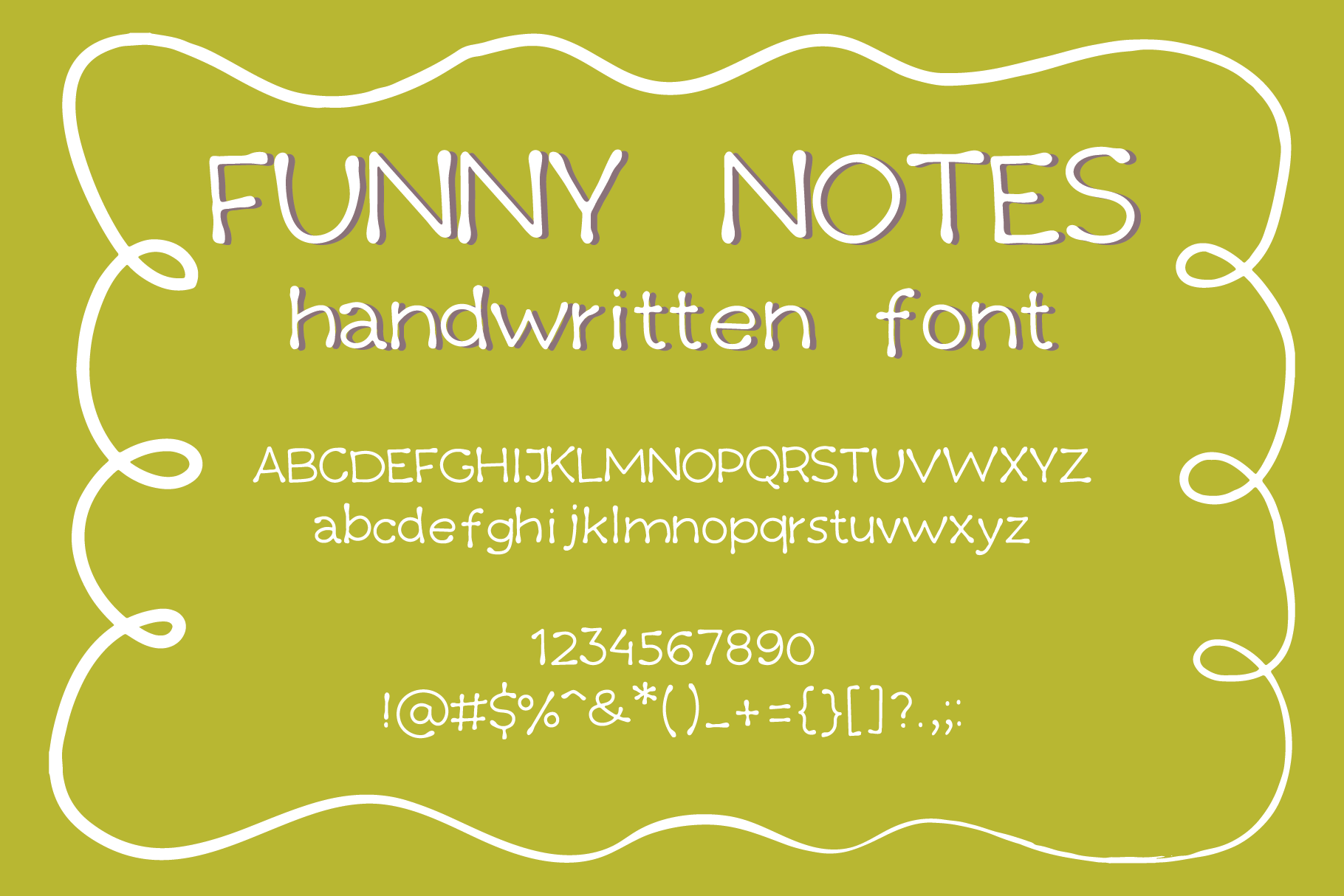
Funny Notes Font
When creating the font, the main idea was to create a playful yet neat font. I intentionally left some rough edges and imperfections. I think this font would be suitable for children's books, posters. stationary, menu, etc.
This font includes uppercase, lowercase, numerals, and punctuation. English only.